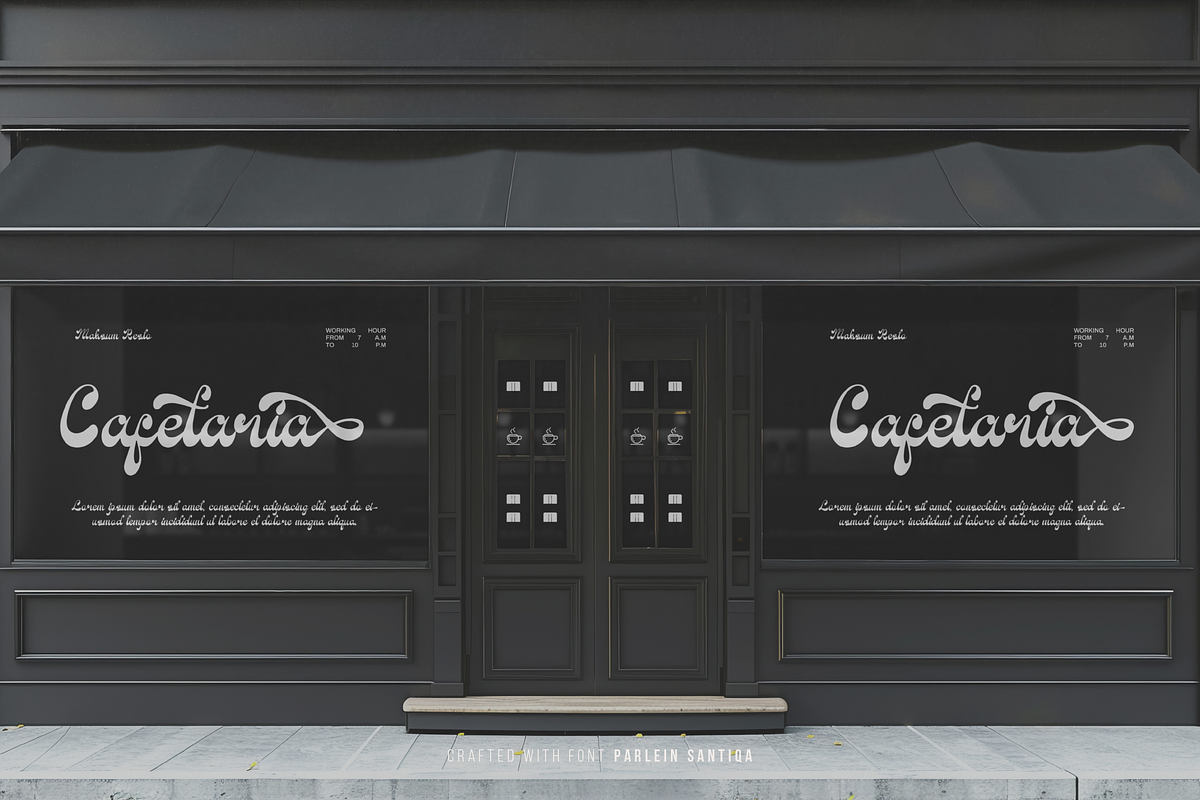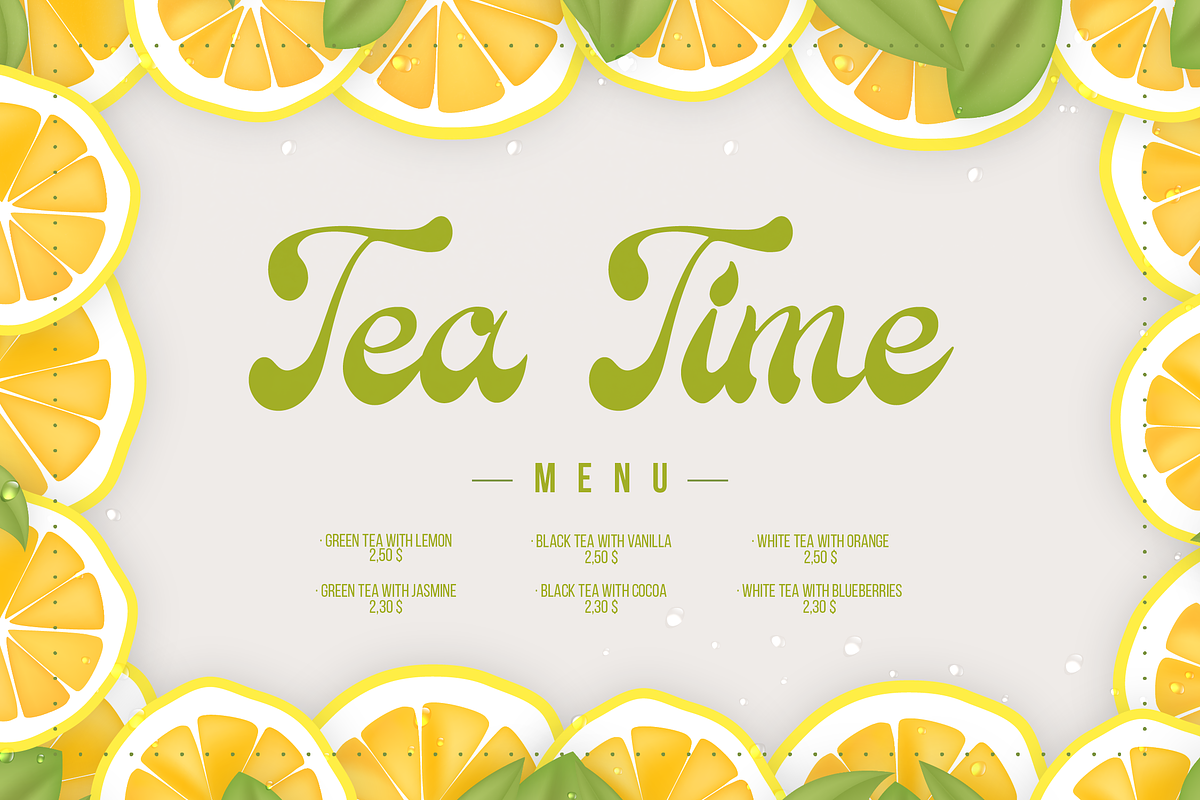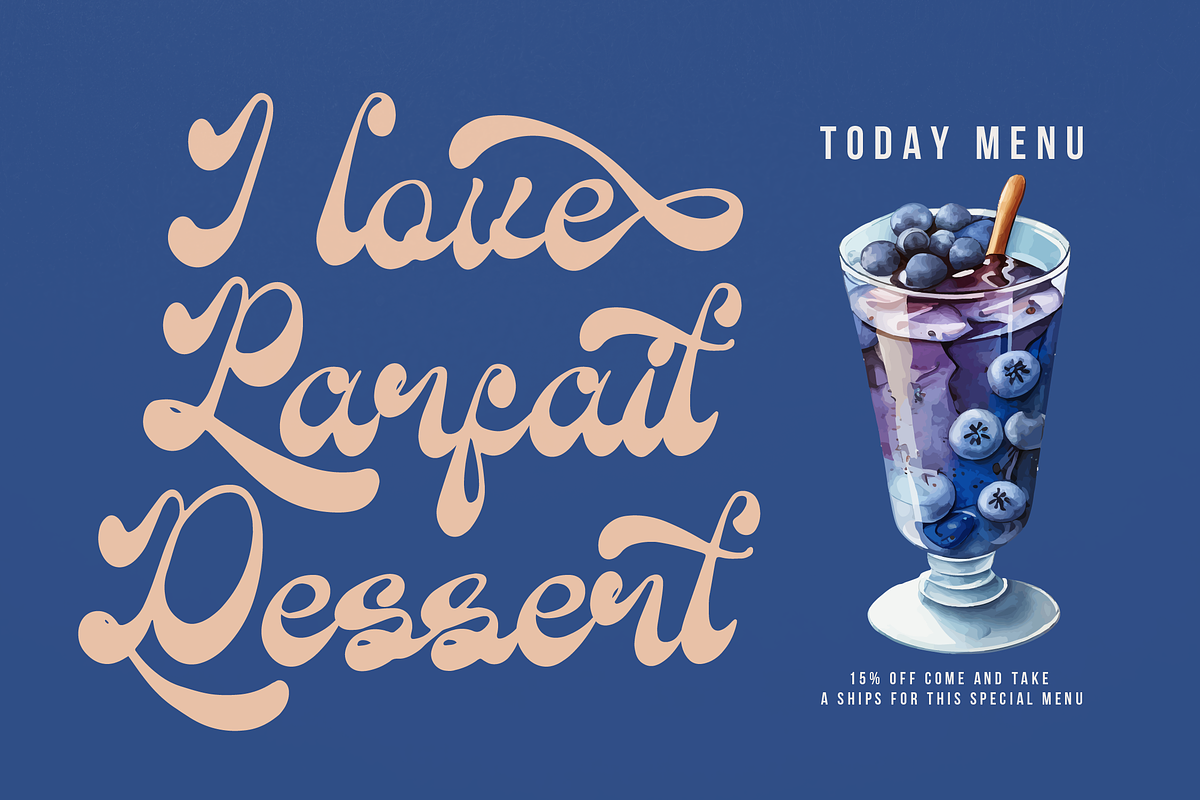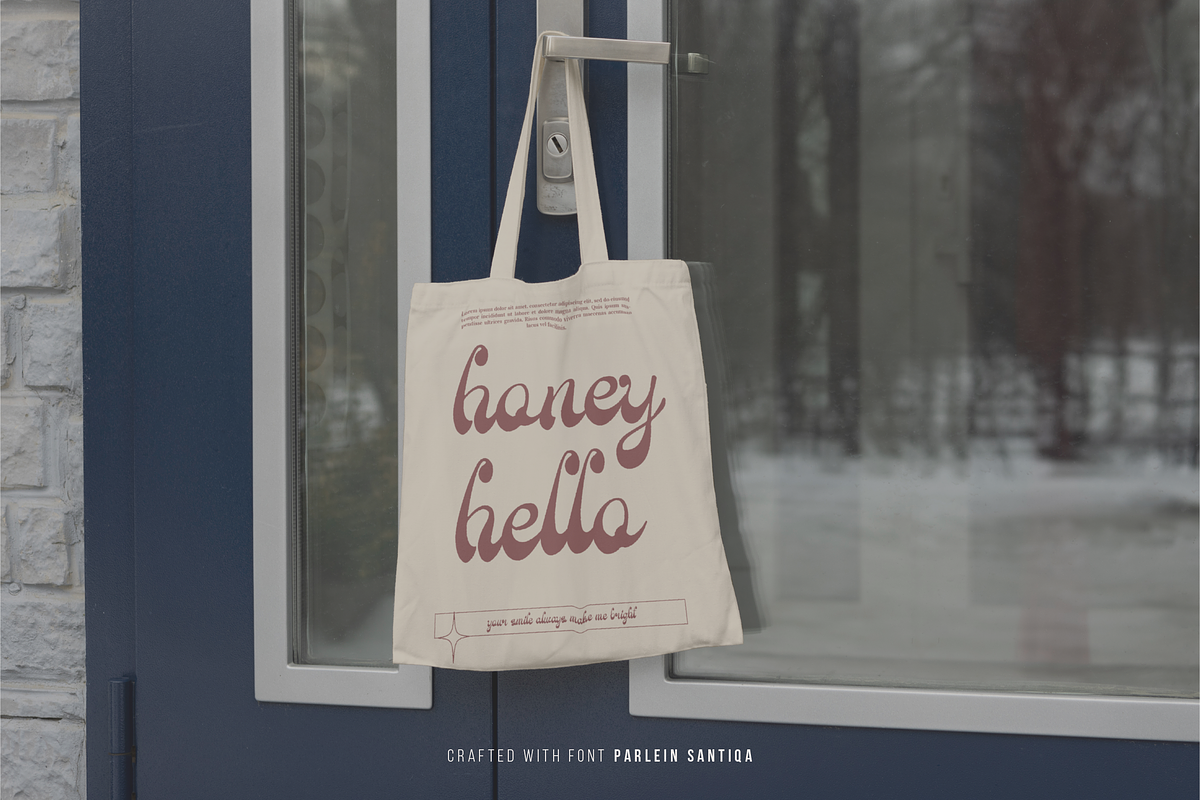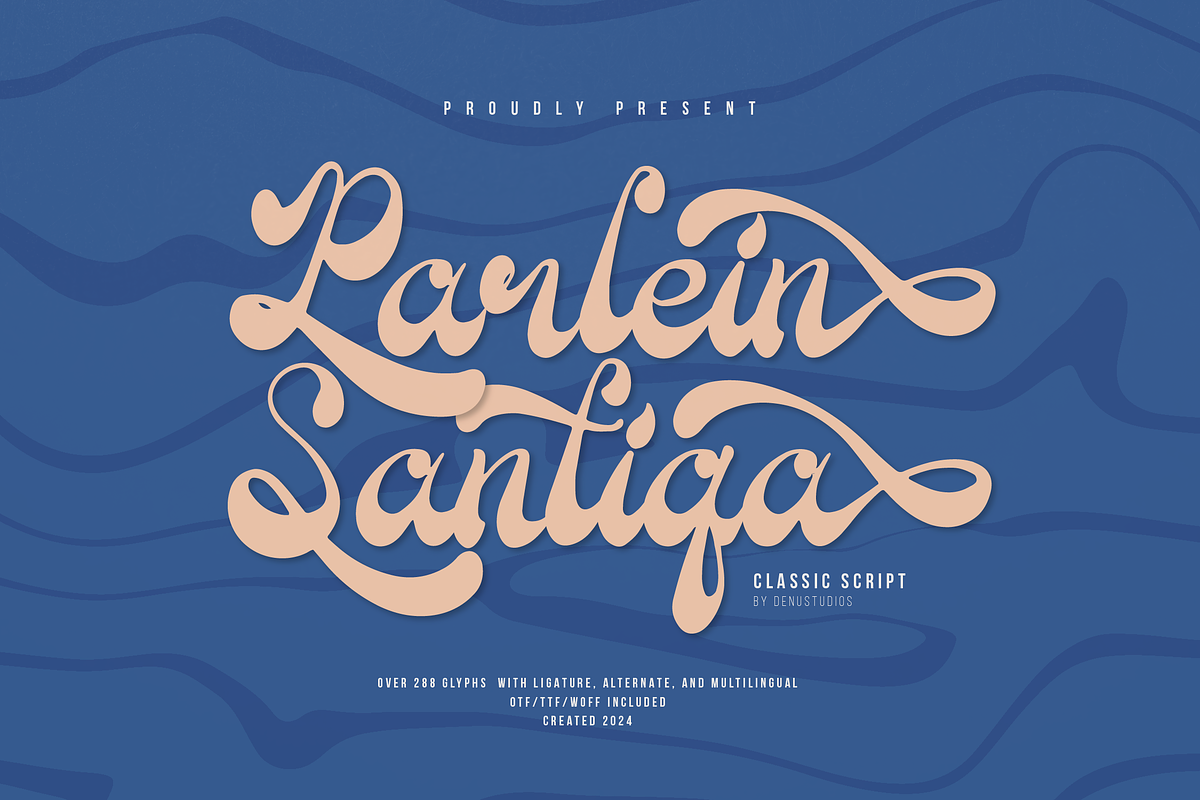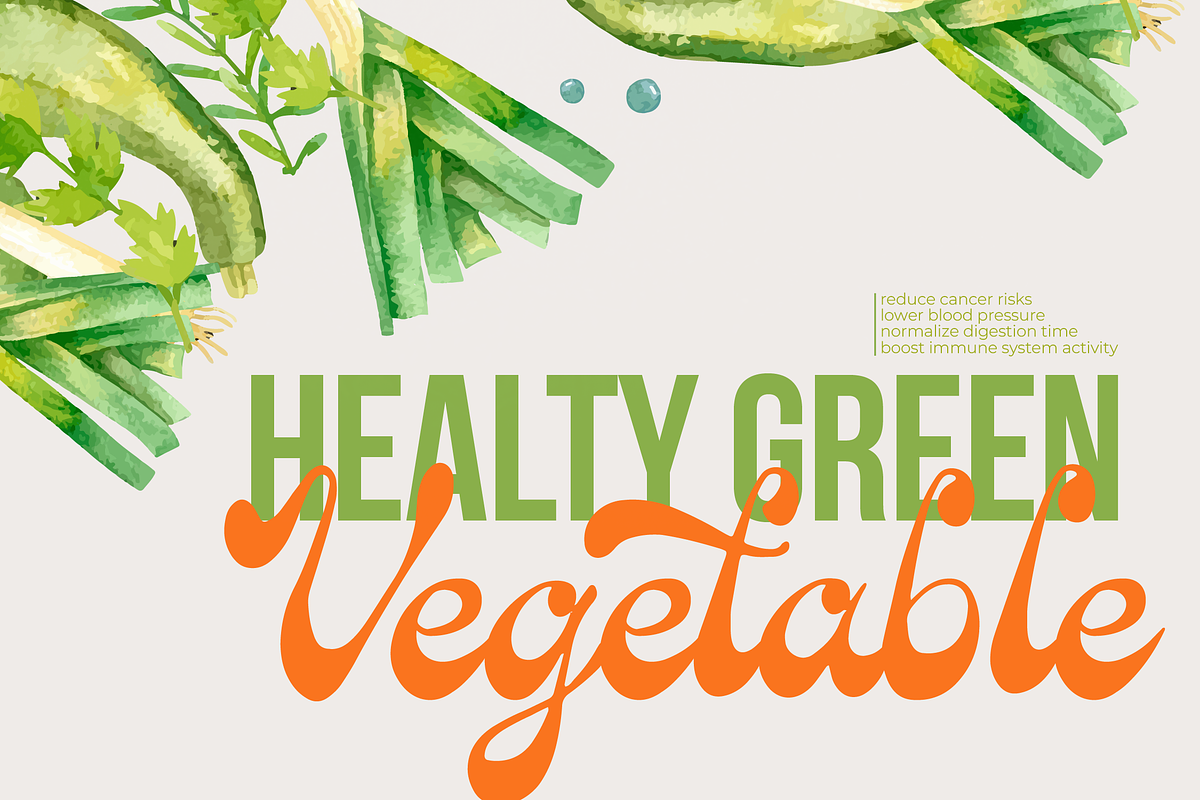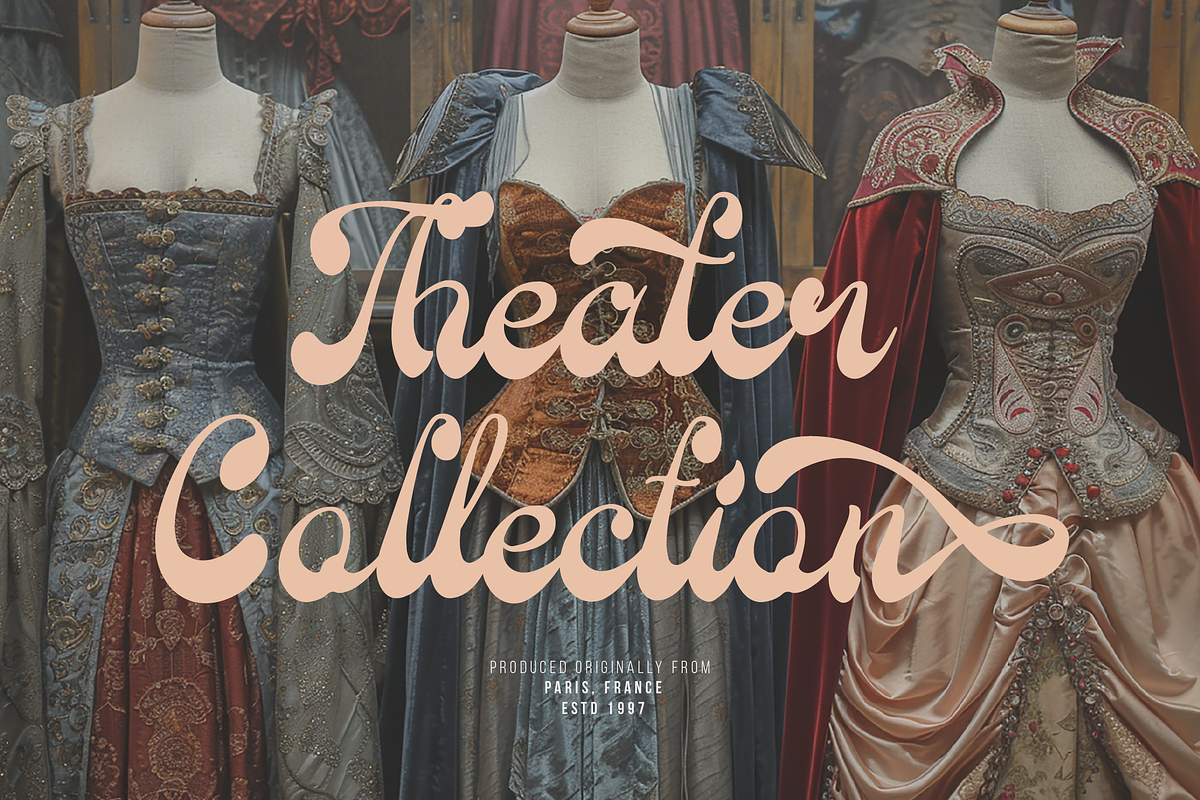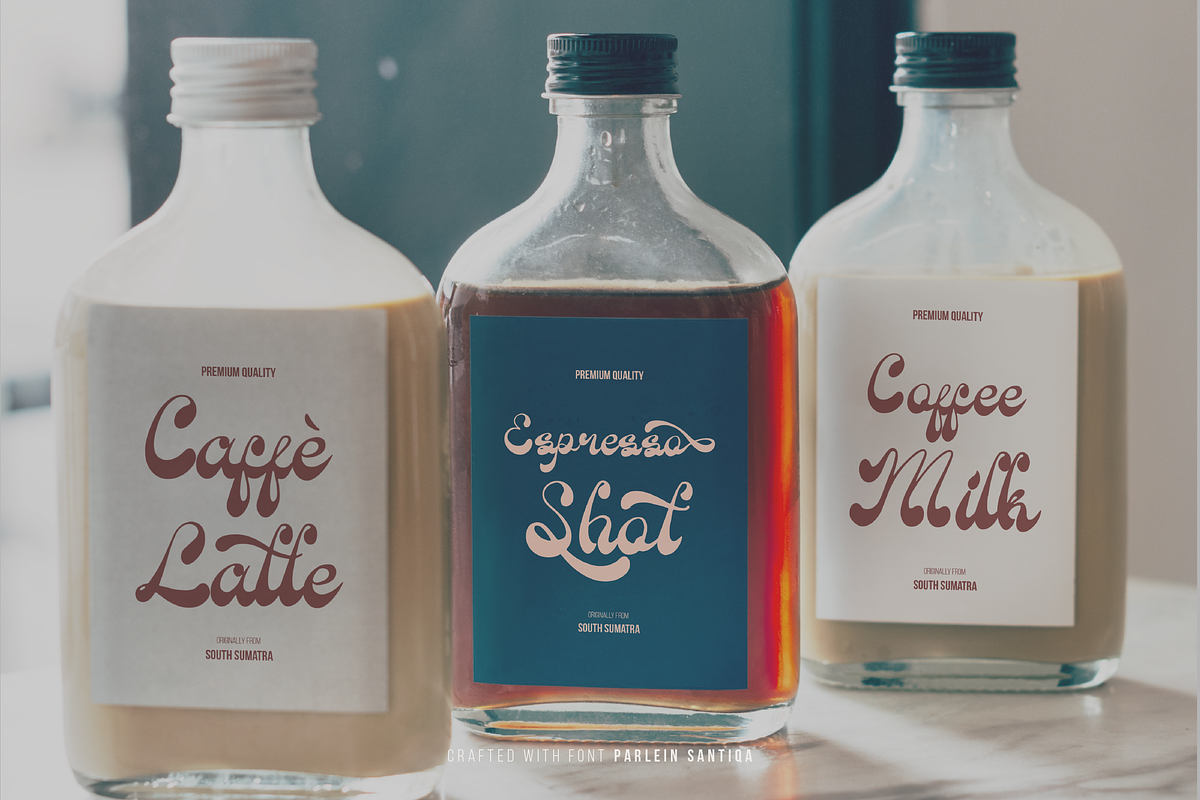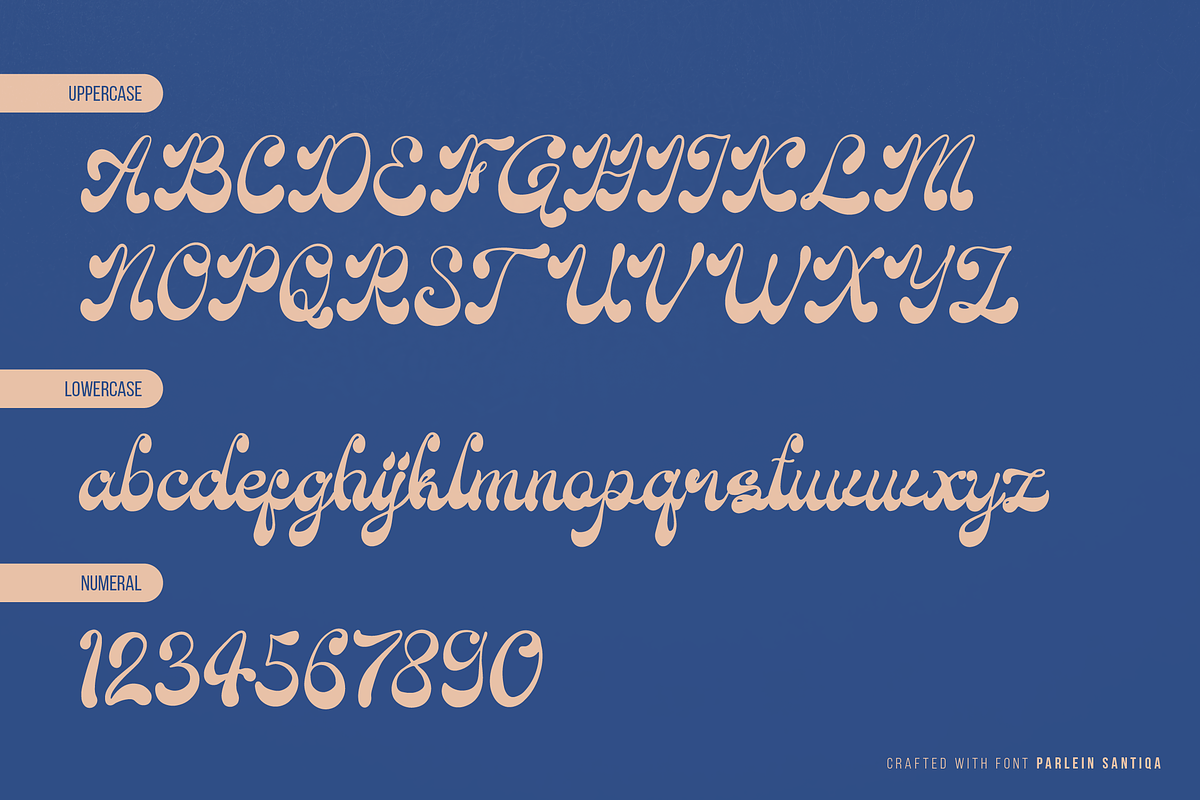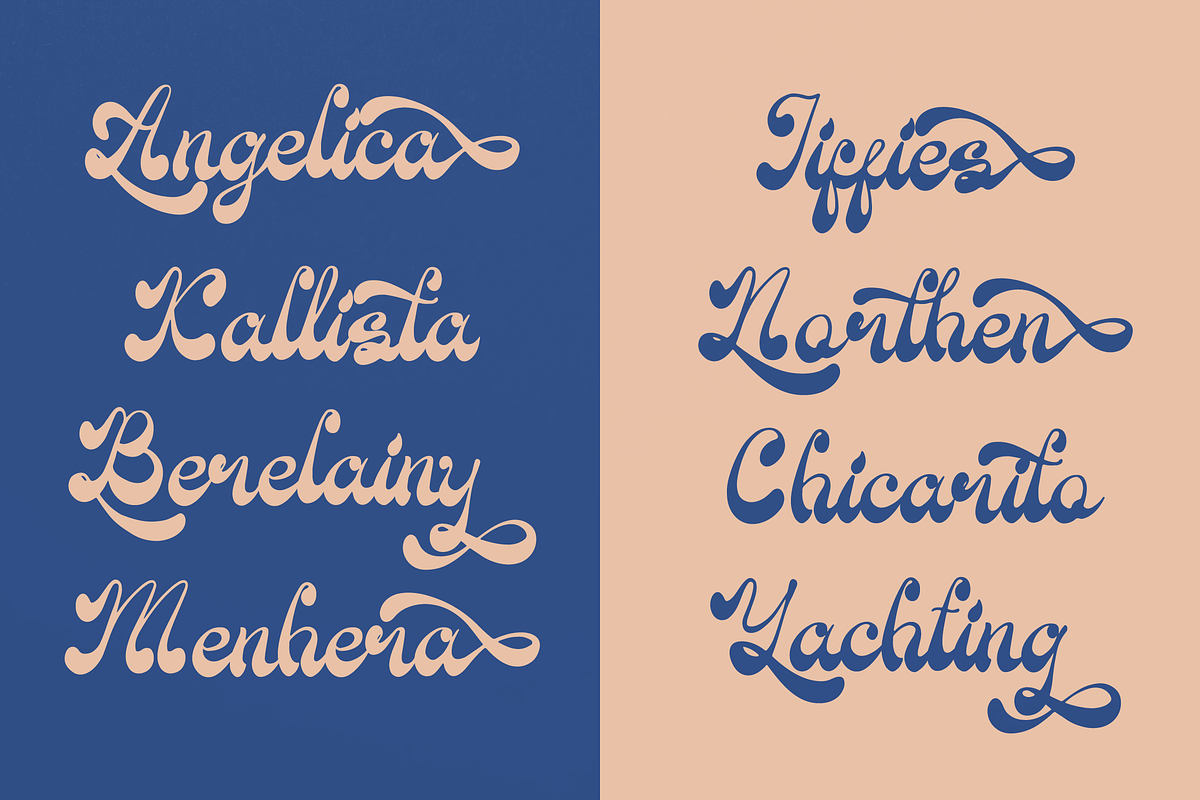
Parlein Santiqa | Classic Script
Parlein Santiqa | Classic Script, from Denustudios, suitable for any projects such as: logos, branding projects, homeware designs, product packaging, mugs, quotes, posters, shopping bags, t-shirts, book covers, name card, invitation cards, greeting cards, label, photography, watermark, special events, and all your other lovely projects that need a Classic Script taste.